Hand Lettering Alphabet Style Database
Explore 260+ creative letter styles from A to Z — your complete hand lettering style database.
Browse unique letterforms, compare shapes, and discover new ways to draw every letter.
Each style is hand-drawn to help you study contrast, rhythm, proportions, and flair — whether you’re sketching on paper or creating digitally. Use this database as your go-to reference to practice, remix, and build your own lettering style one letter at a time. In case you’re just getting started, check out the Hand Lettering Guide For Beginners.
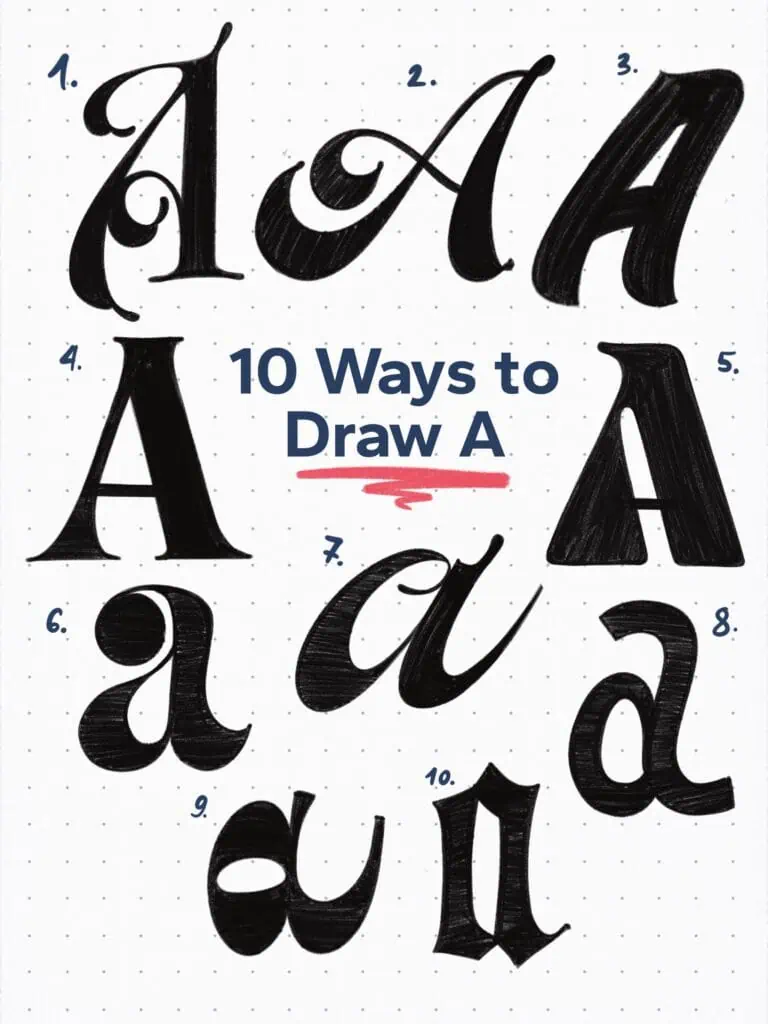Ten artistic variations of the letter A
Different artistic styles of the letter B
Various styles of the letter 'C' illustrated.
Ten stylistic variations of the letter D.
Varied styles demonstrating ten ways to draw 'E'.
Different artistic styles of the letter F
Ten creative designs of the letter G.
Various creative styles illustrating the letter H
Various artistic styles to draw the letter I
Ten artistic styles of the letter J
Illustrations of ten creative ways to draw 'K'.
Various artistic styles of the letter L.
Different artistic styles for the letter M
Ten creative ways to draw the letter N.
Stylized letter O variations and drawing techniques.
Ten artistic variations of the letter P.
Different styles to draw the letter Q
Ten creative ways to draw the letter R
Ten creative styles to draw the letter S.
Creatively styled letter T in ten variations.
Creative styles to illustrate the letter U.
Ten creative styles to draw the letter V.
Ten creative styles to draw the letter W.
Different artistic styles for the letter X
Ten creative styles for drawing the letter Y.
Ten artistic styles to draw the letter Z.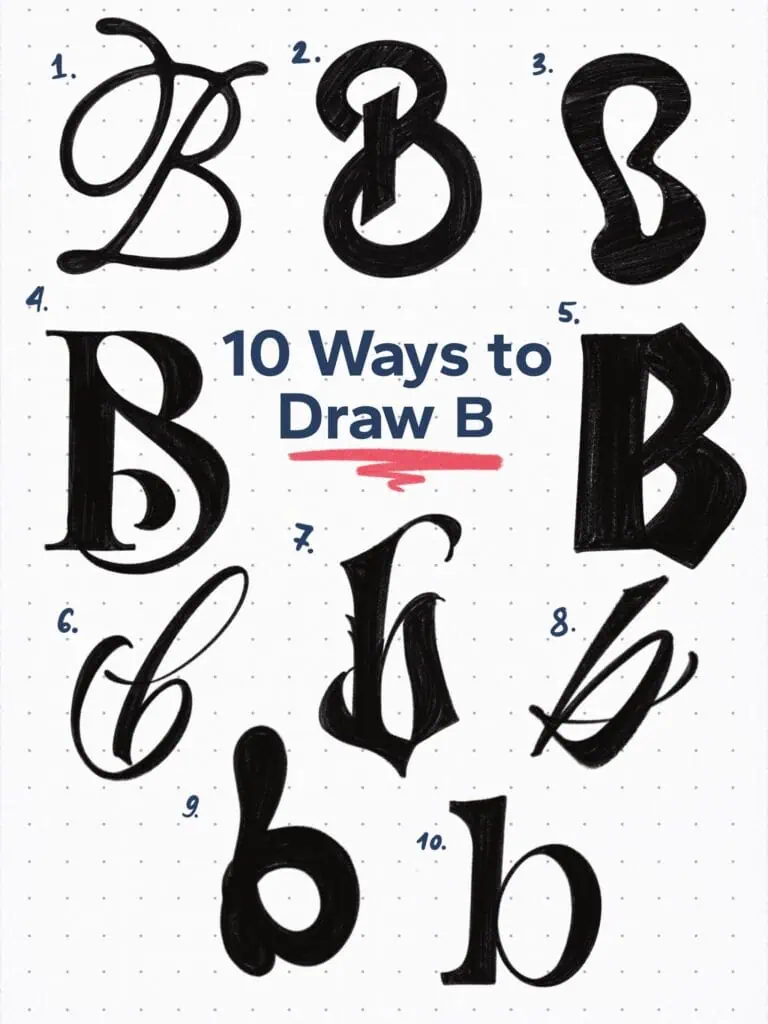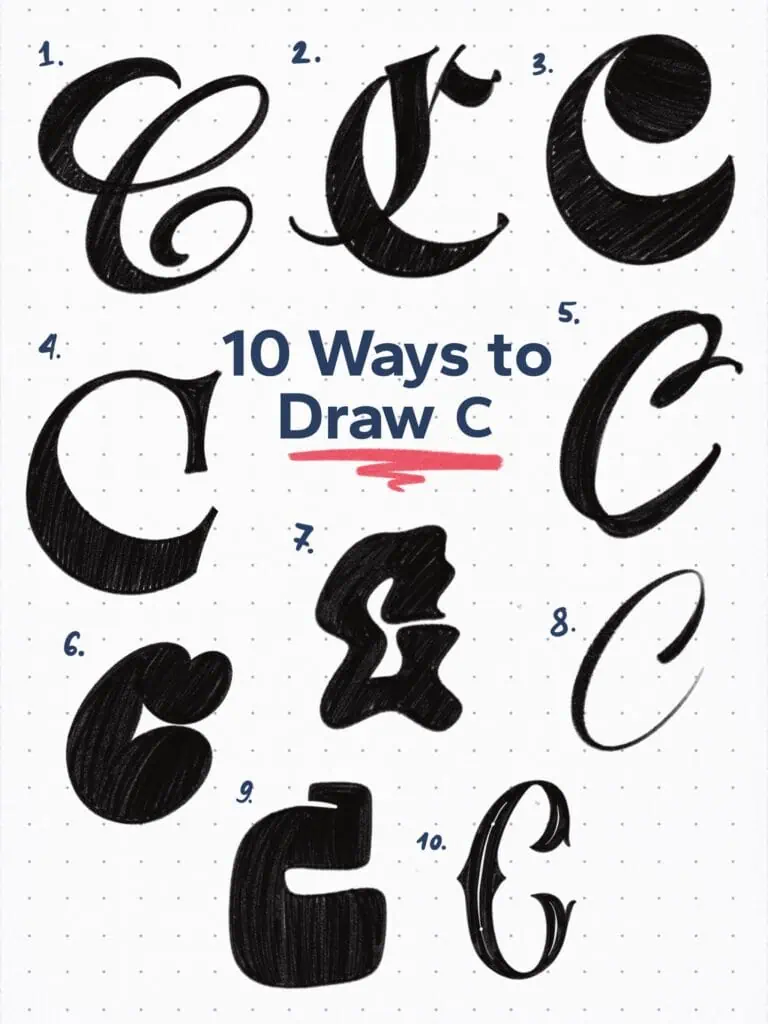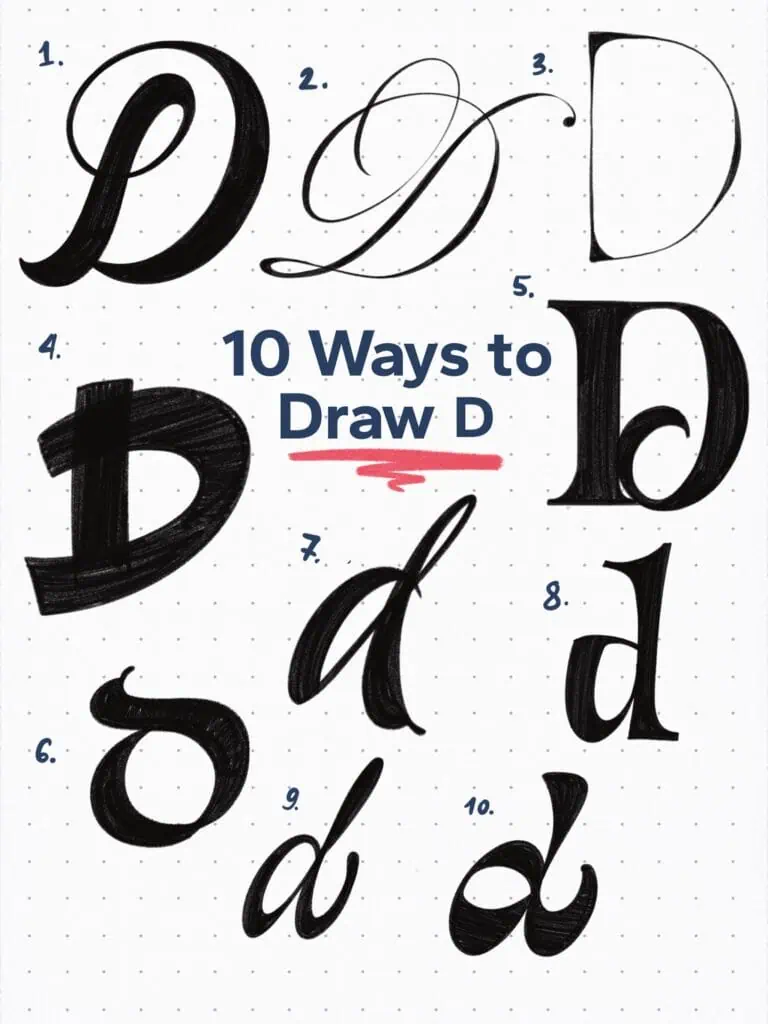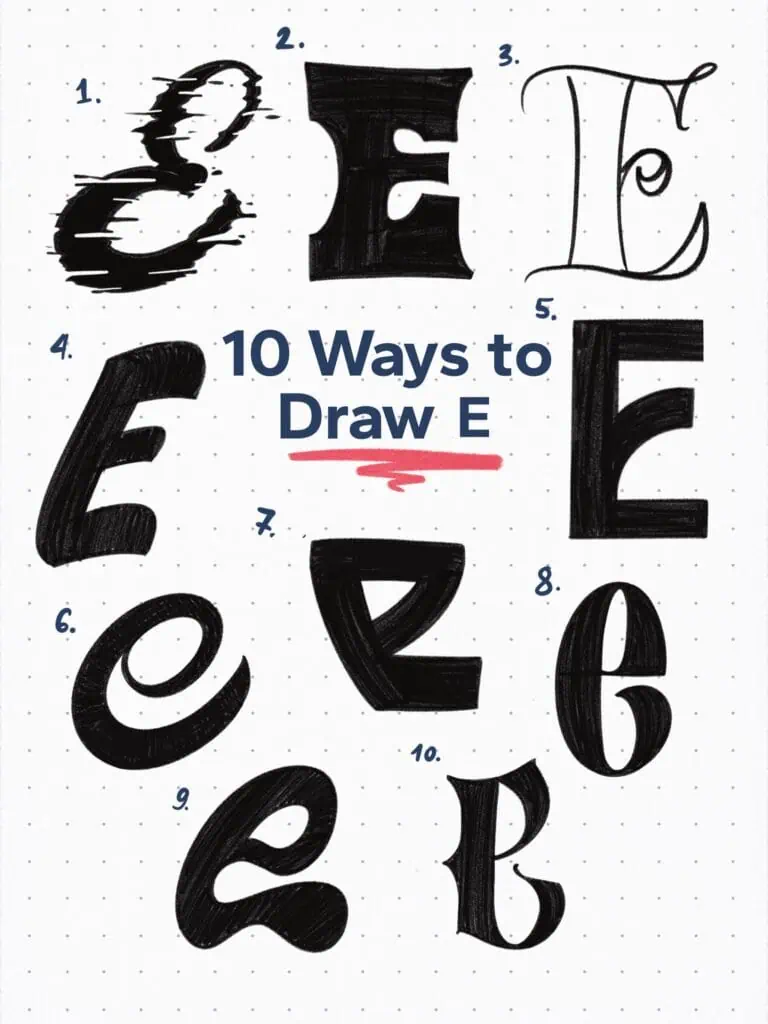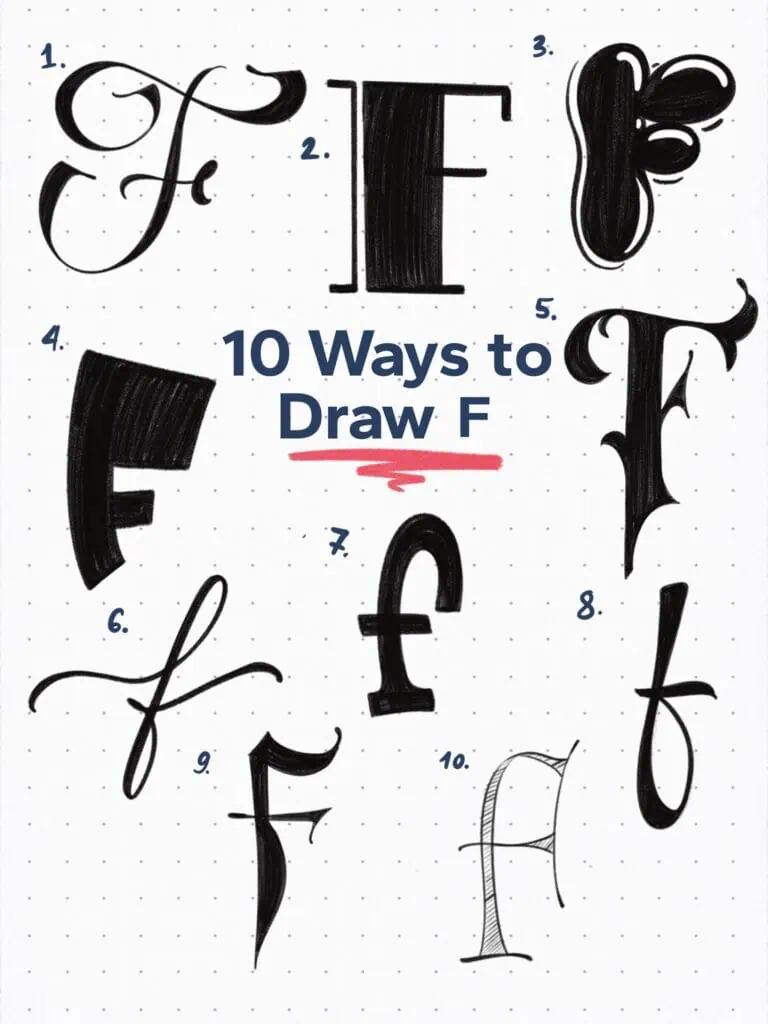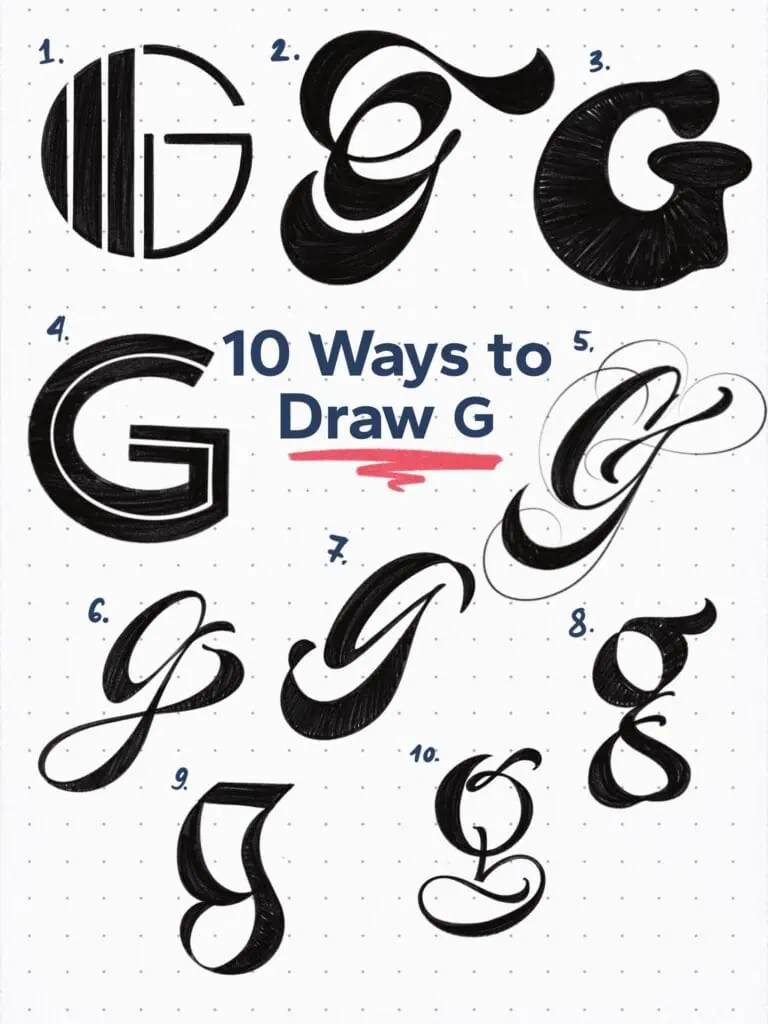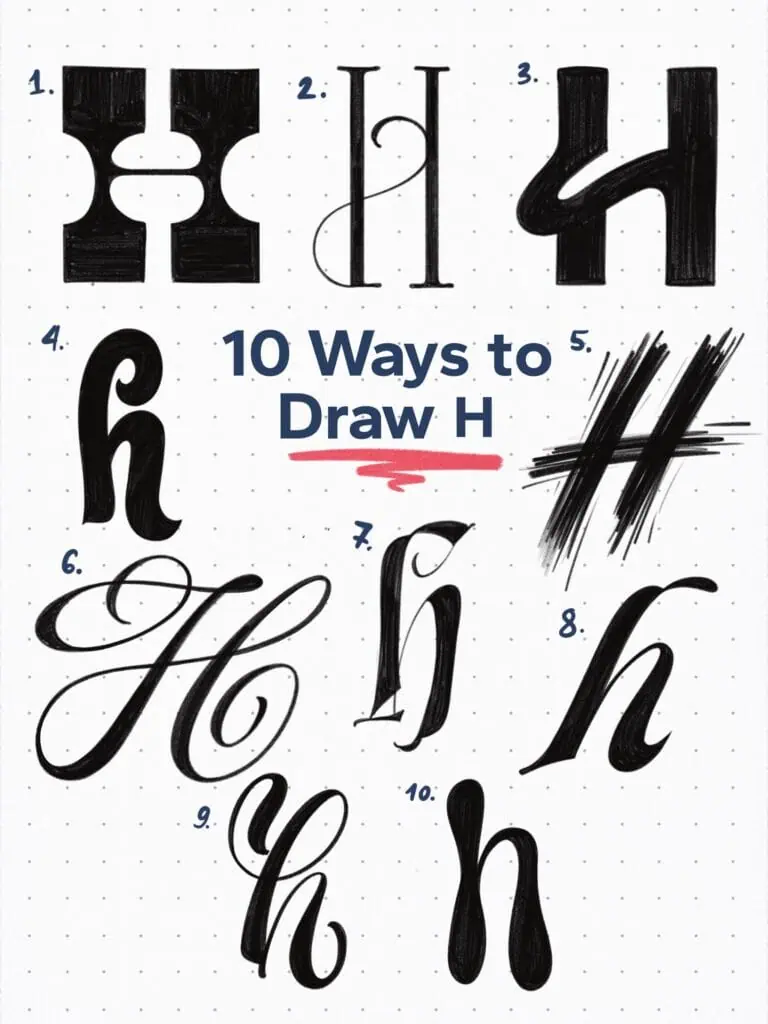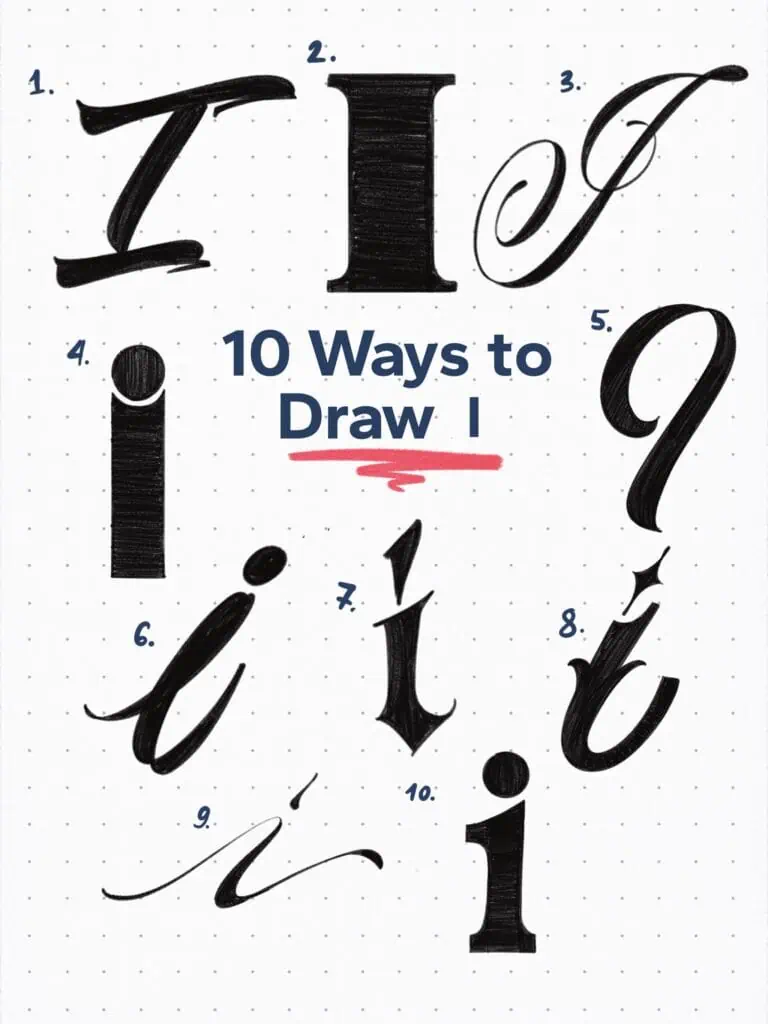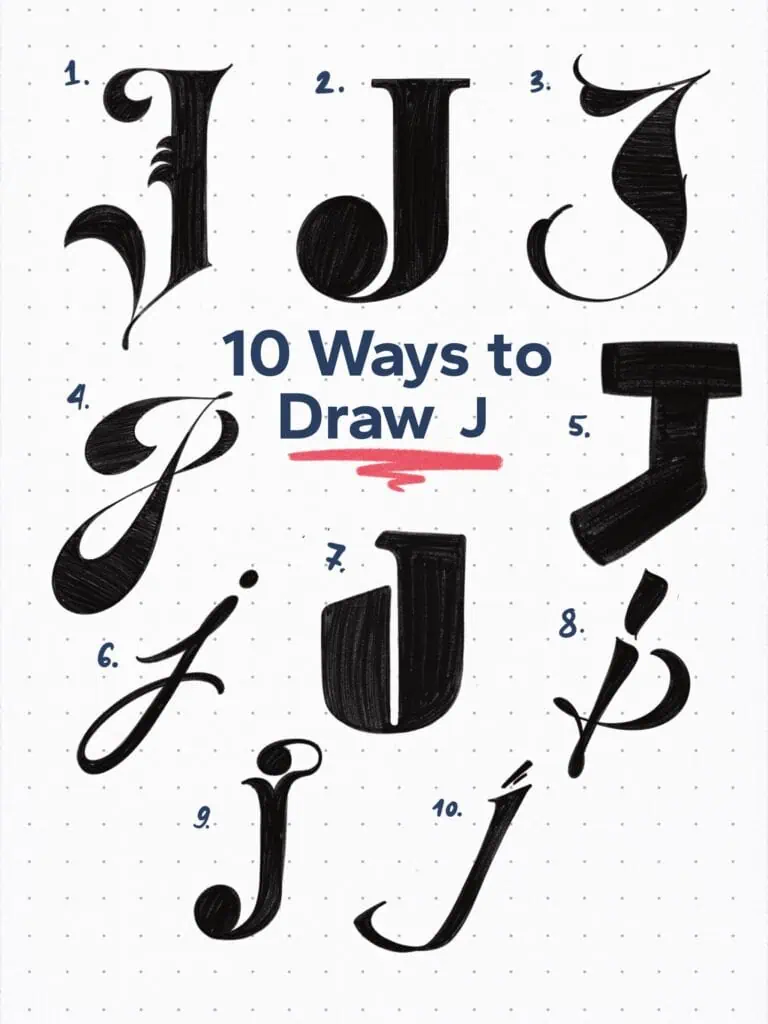